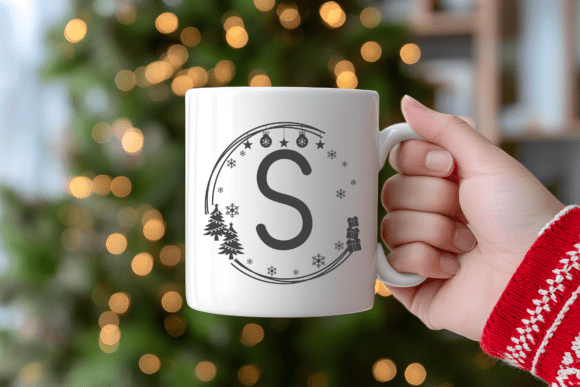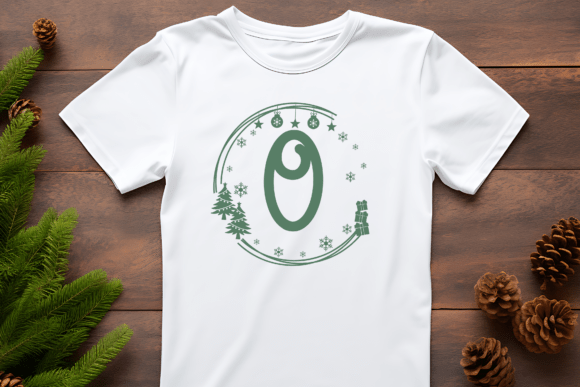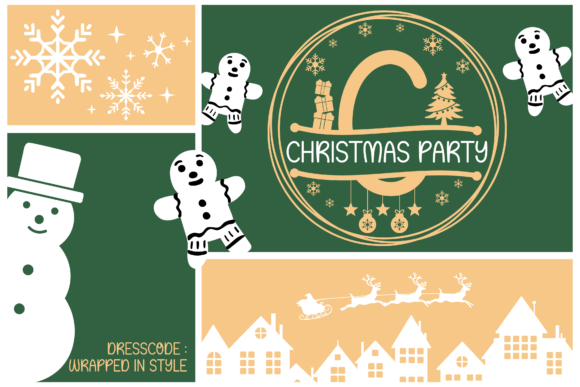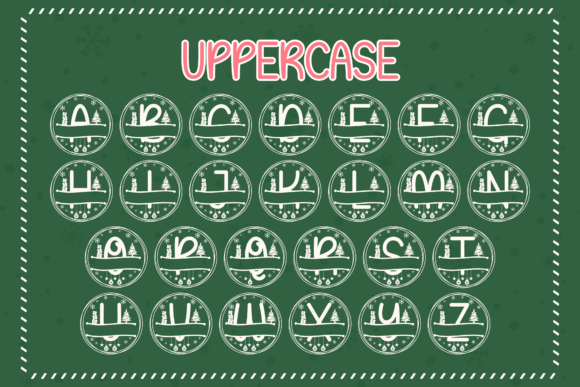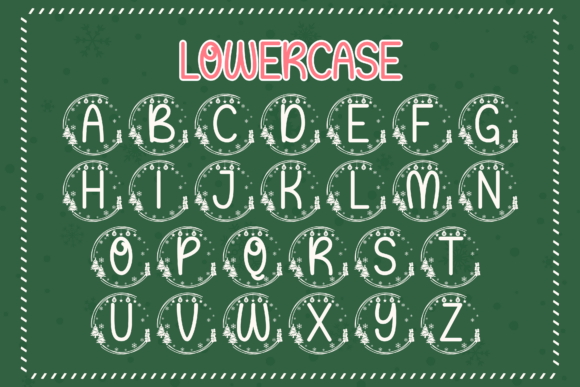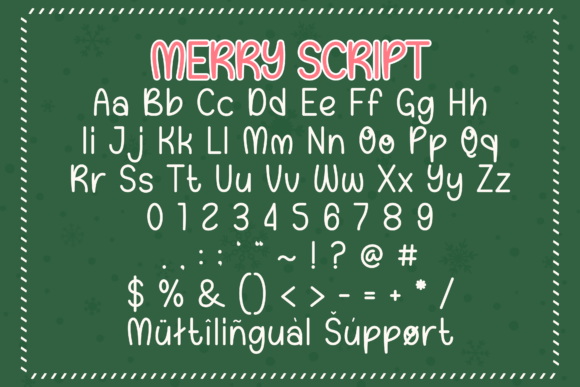
Introduction to Merry Sparkle Monogram Font
Merry Sparkle is an enchanting Christmas Monogram Font Duo perfectly crafted to bring holiday cheer and a personal touch to all your festive creations.
This delightful typeface features rounded, friendly letterforms for the main display text, beautifully complemented by the chunky, distinct letters specifically designed for seamless integration into the popular split-monogram format The playful yet clean aesthetic of the Merry Sparkle font makes it ideal for customized gifts, holiday apparel, personalized ornaments, and digital cards, providing a unique and heartwarming look that embodies the spirit of the season.
Key Features of Merry Sparkle Monogram Font
Why Choose Merry Sparkle Monogram Font?